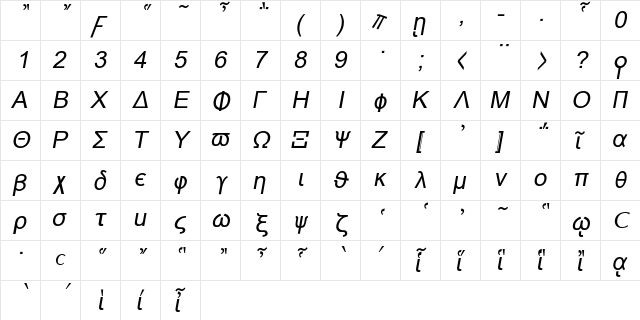
Naxos Italic
Design Context for Naxos Typeface
Naxos takes a measured approach to typography — its balanced proportions and neutral character make it a reliable workhorse for both digital and print work. Its italic angle brings a sense of urgency and motion to the letterforms.
Pro Tip: Try Naxos for annotation and caption copy alongside an upright companion — the contrast in angle creates a dynamic but ordered typographic system.